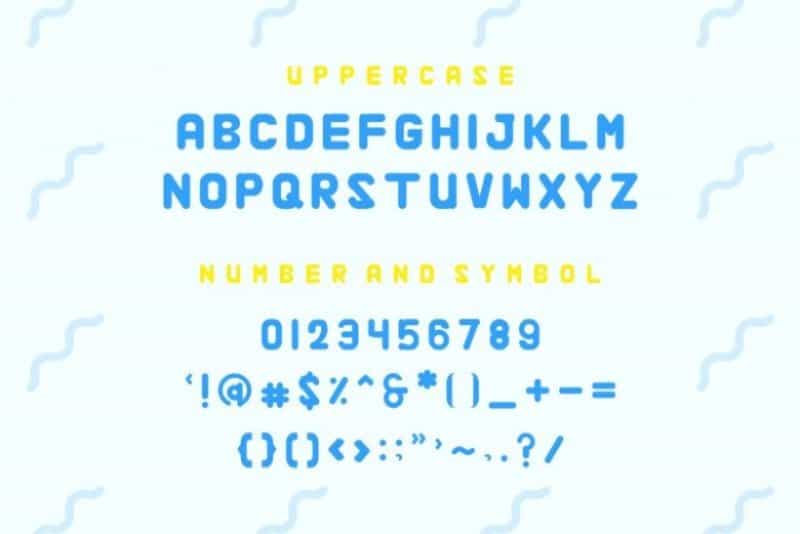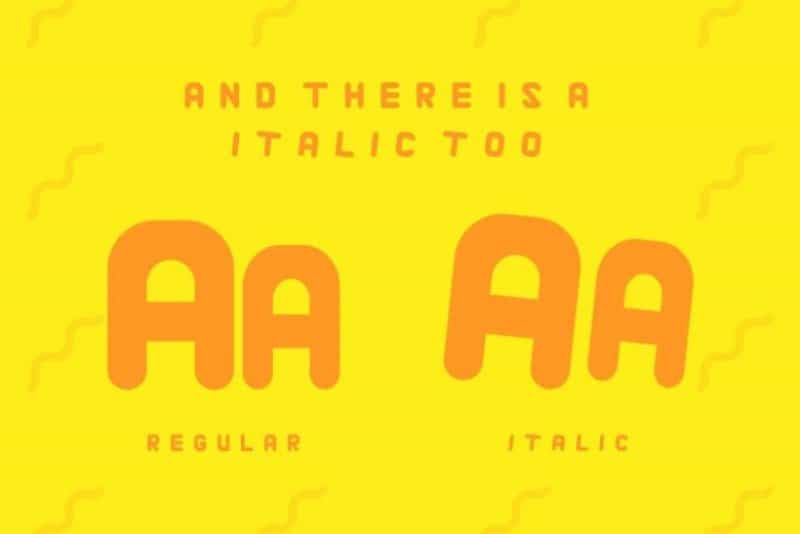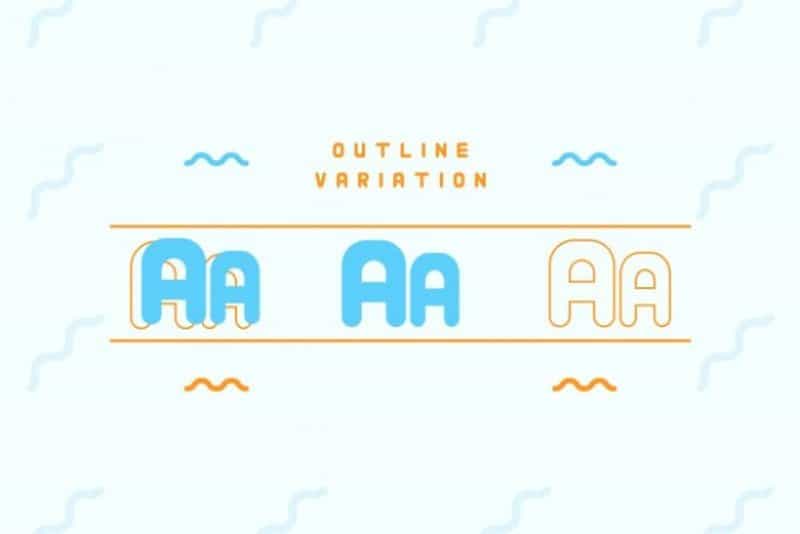
The Glyph are polished. It seems to be perfect for any food packaging, beverage, street food, summer cafe and cheer theme as well. This font has OTF, TTF and WOFF. Besides, the instruction is available if you need it.